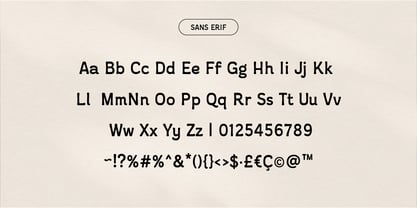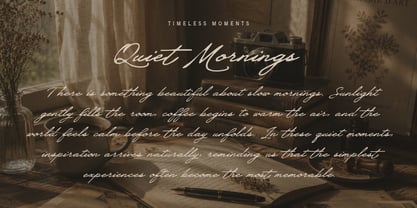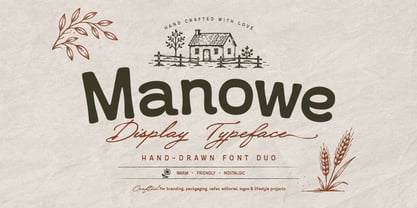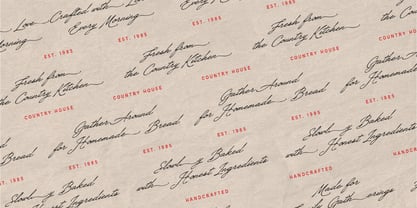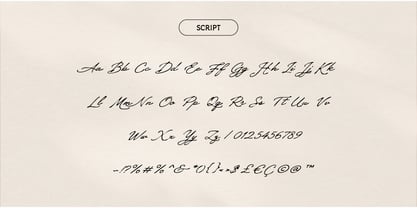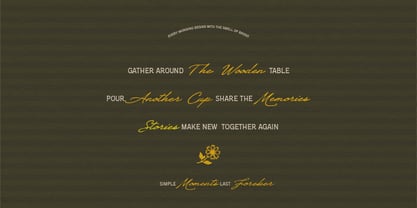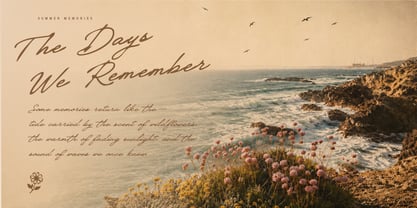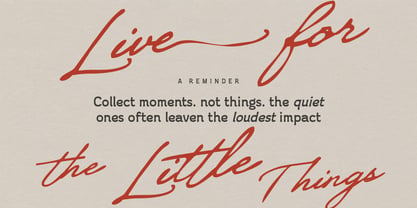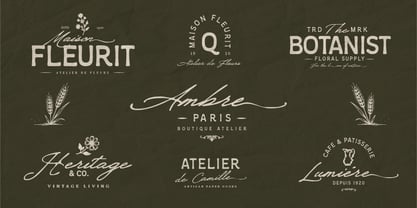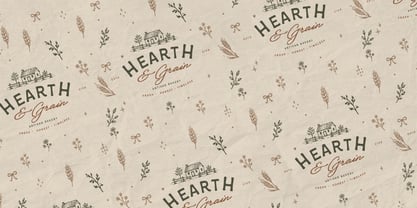
Manowe
La familia tipográfica Manowe fue diseñada por Akhmad Hidayat y publicada por Nollev. Manowe contiene 6 estilos y opciones de paquete familiar. Más información sobre esta familia
Manowe is a handcrafted font duo that pairs a bold rounded display with a flowing handwritten script. Designed with soft curves, balanced proportions, and organic details, it offers a warm, approachable character while maintaining excellent readability.
Ideal for branding, logos, packaging, editorial design, signage, invitations, and social media, Manowe brings a handcrafted touch to both modern and rustic creative projects. The combination of the display and script fonts provides versatility for creating distinctive and memorable typography.
The family includes multilingual support, ligatures, stylistic alternates, and a complete character set with uppercase, lowercase, numerals, punctuation, and symbols.